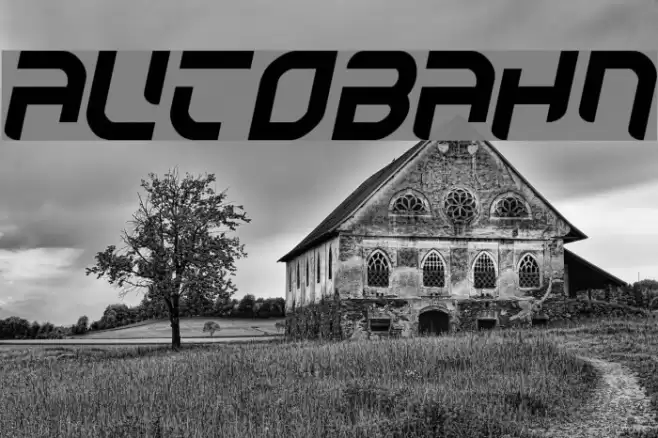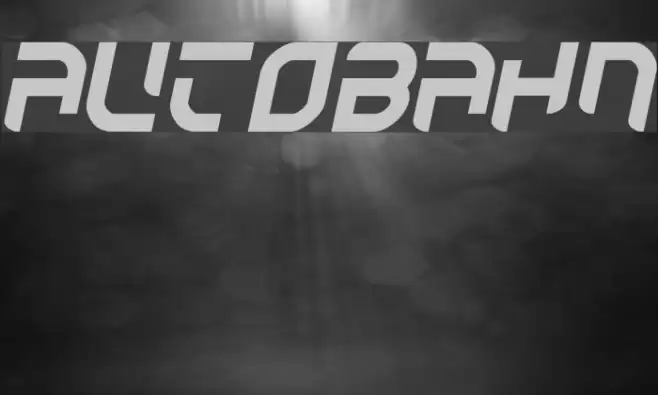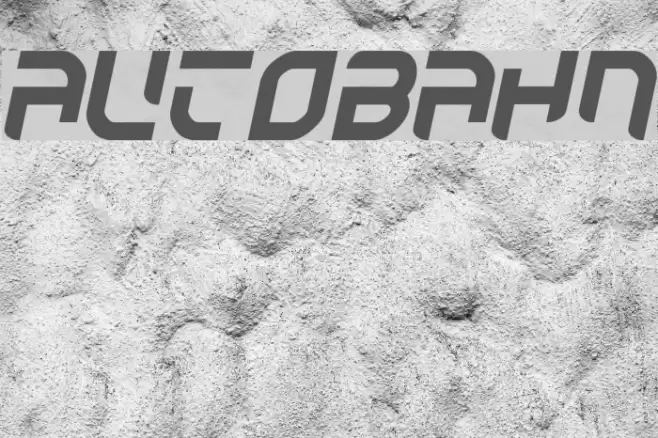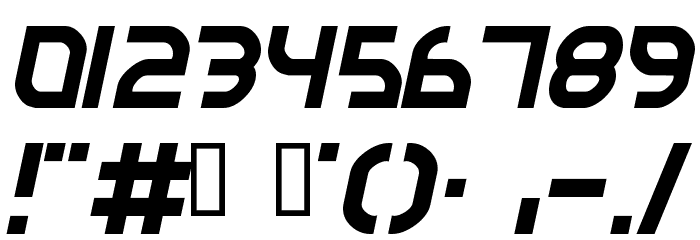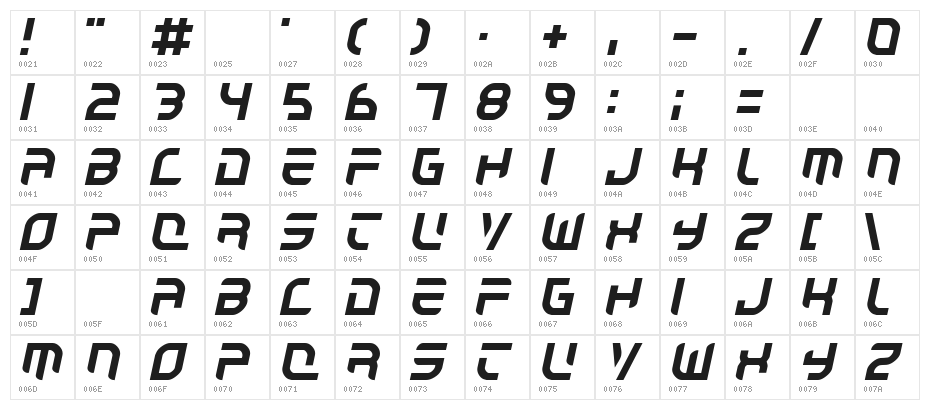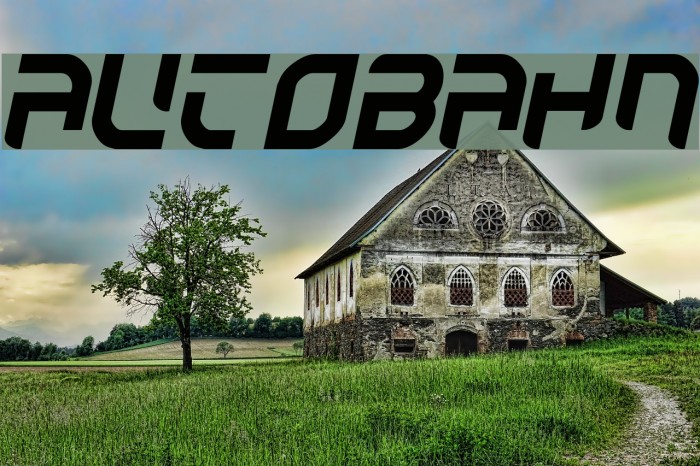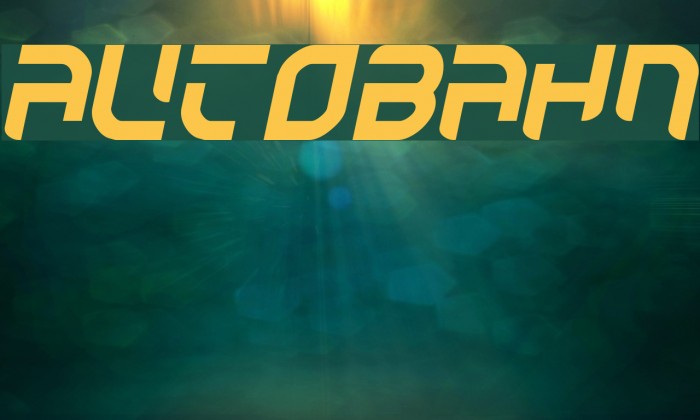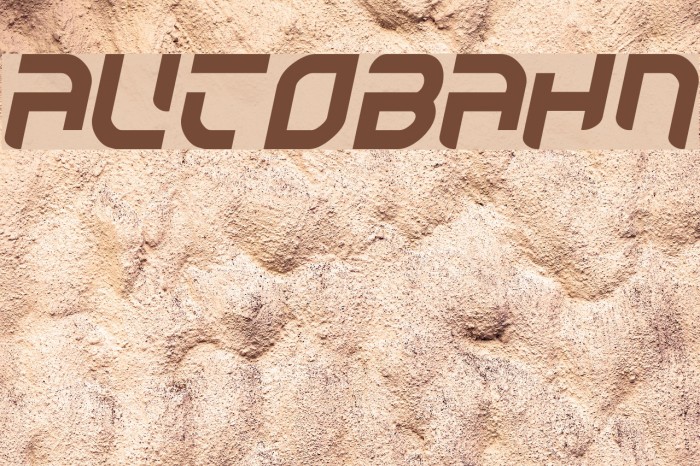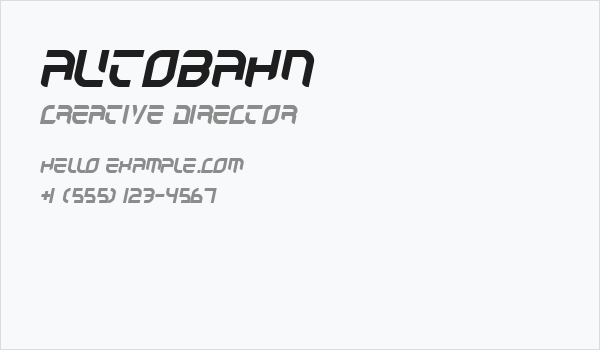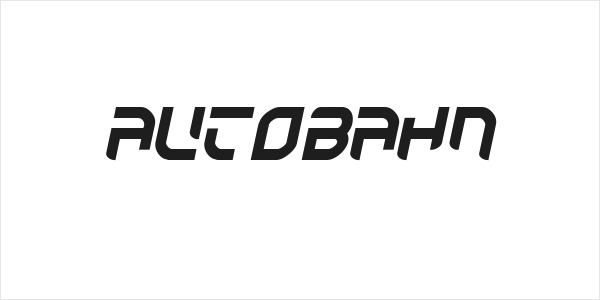
Autobahn Font
Autobahn Description
This font features a bold, futuristic design with angular, geometric shapes that convey a sense of speed and modernity. The characters are slightly slanted, adding a dynamic and forward-moving feel. The uppercase and lowercase letters maintain a consistent style, with sharp edges and a uniform thickness that enhances readability. The numerals and special characters are designed to match the overall aesthetic, ensuring a cohesive look across all text elements. This font is ideal for projects that require a modern and edgy appearance.
A bold, futuristic font with angular, geometric shapes and a dynamic slant from Stencil fonts.
- Proposed Projects: Ideal for automotive branding, technology advertisements, video game titles, and futuristic-themed posters.